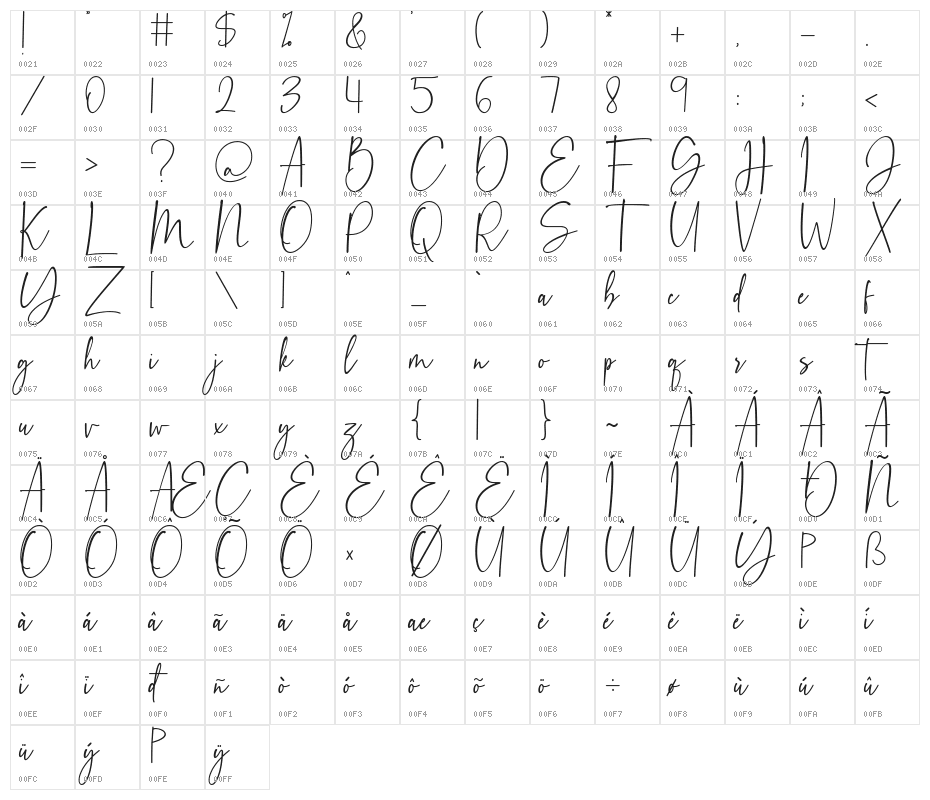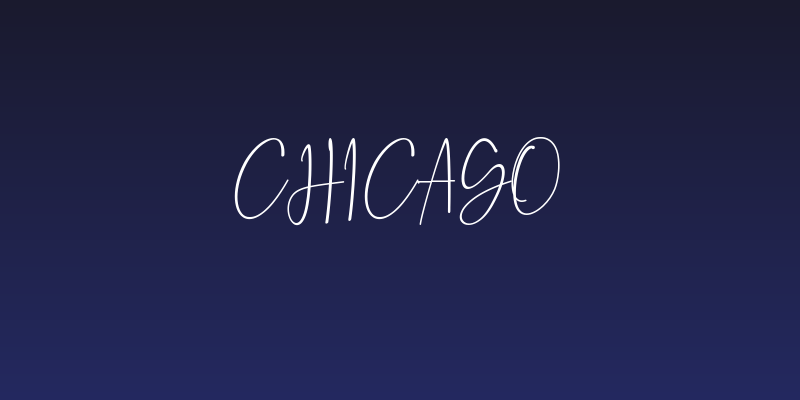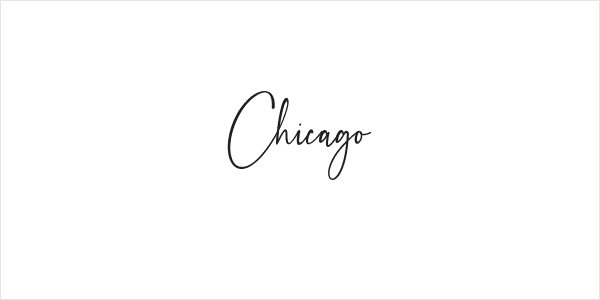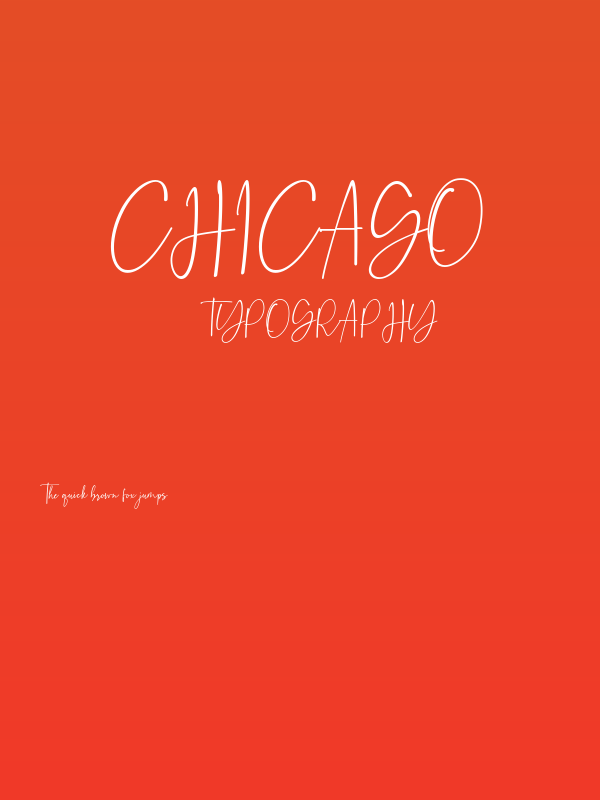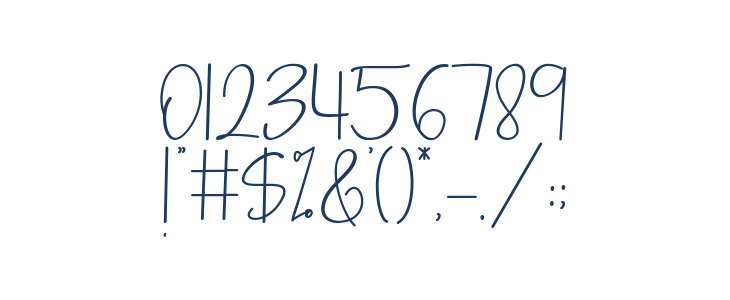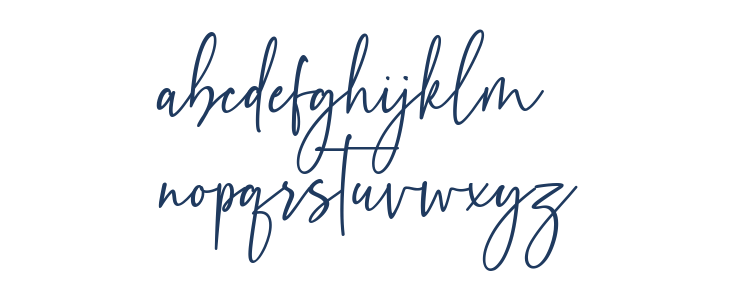
Chicago Font
Chicago Description
This font features a playful and elegant handwritten style, characterized by its fluid and continuous strokes. The uppercase letters are tall and slender, with a slight slant that adds a dynamic feel. The lowercase letters maintain a consistent flow, enhancing the script-like appearance. Numbers and special characters are crafted with the same attention to fluidity and style, making them seamlessly integrate with the alphabet. The overall design exudes a sense of casual sophistication, perfect for projects that require a personal touch.
| Proposed Projects | Ideal for wedding invitations, personal branding, greeting cards, and creative projects that require a personal and elegant touch. |